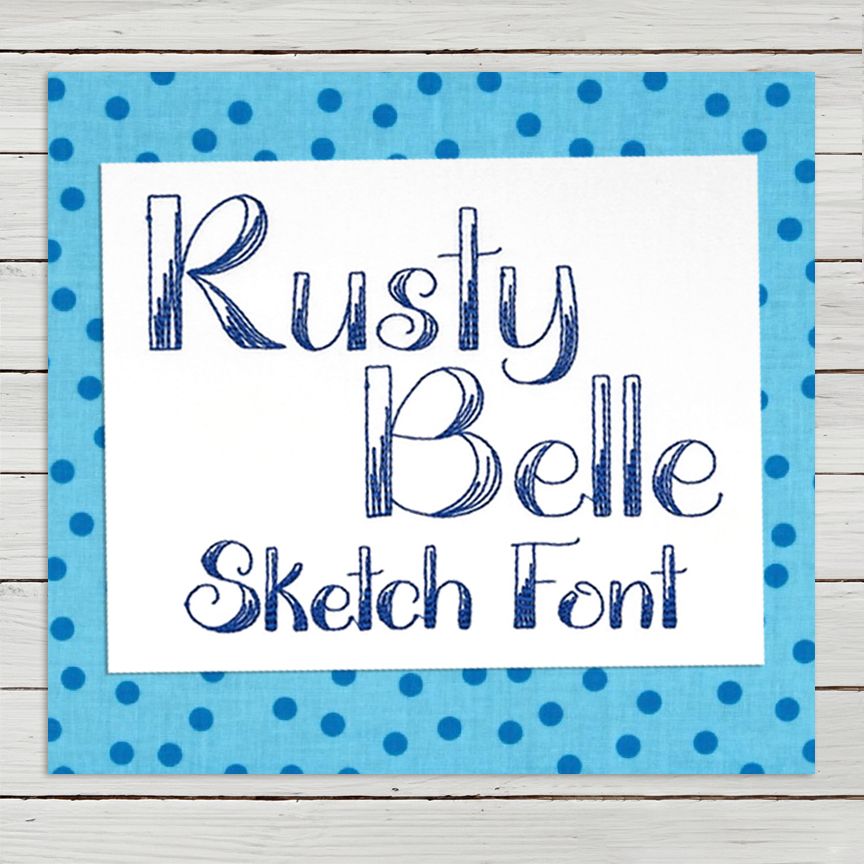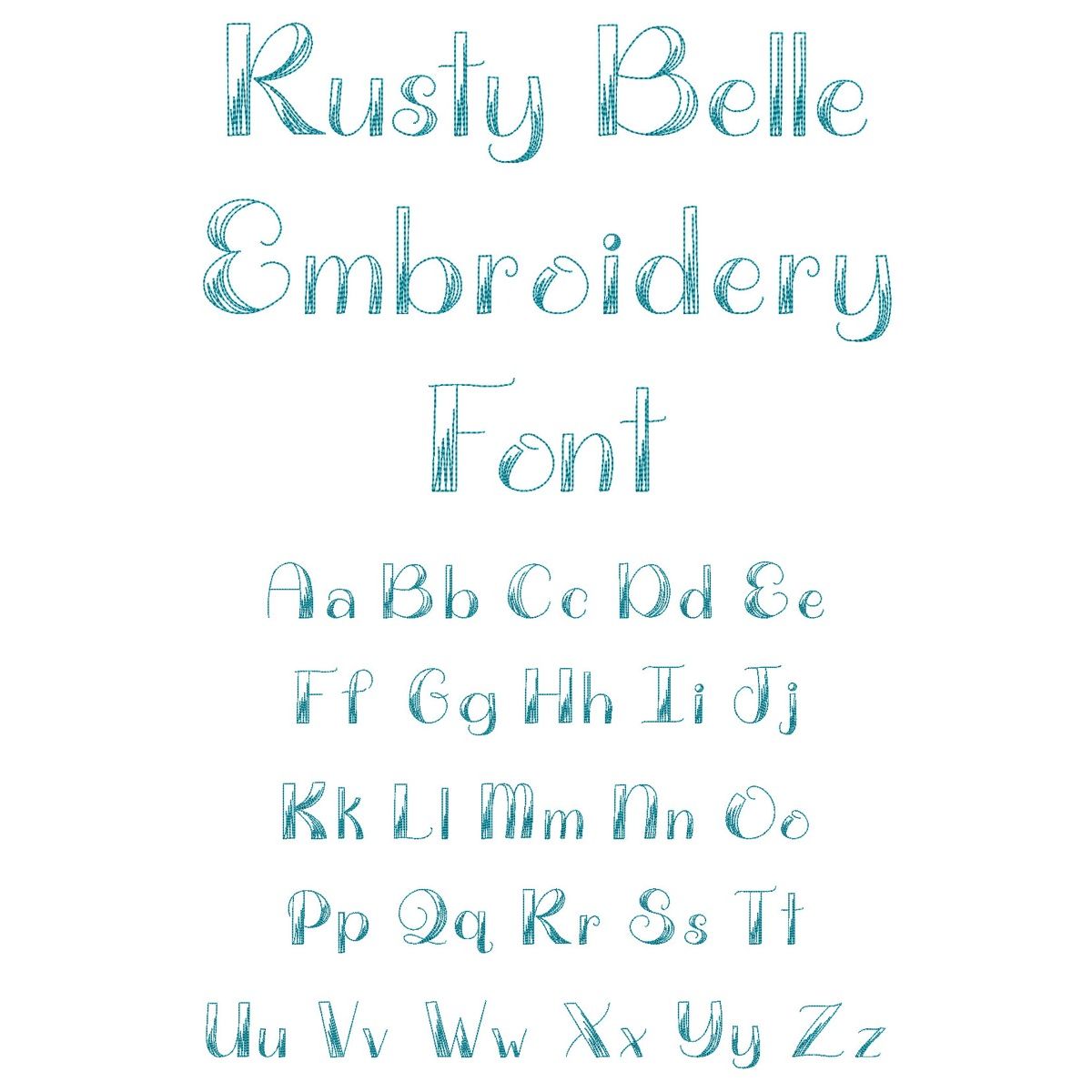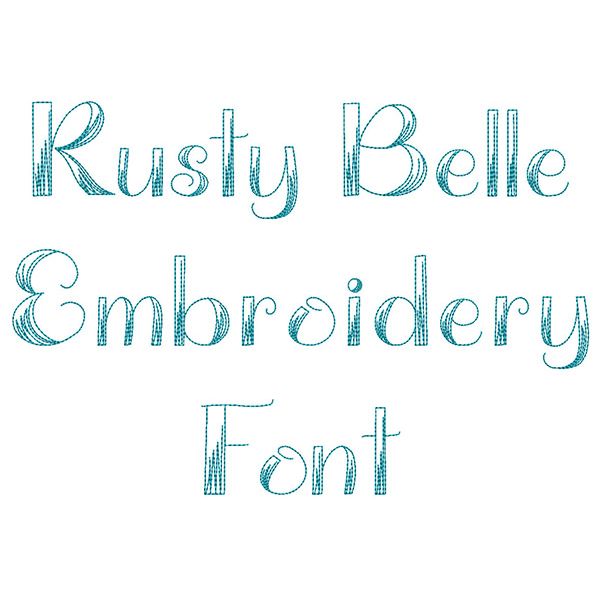
Rusty Belle Bean Stitch Embroidery Font
Rusty Belle Embroidery Font features bean stitches for a sketchy look.
This font only includes capital and lowercase letters, as pictured.